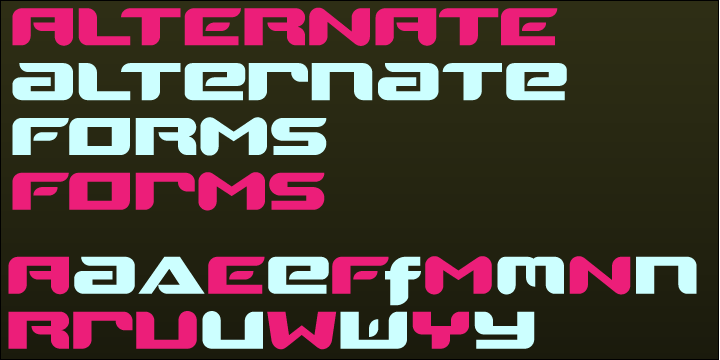
First seen on MyFonts: May 4th, 2009 Automaton was initially designed as a portion of a logotype in 2000, then redesigned slowly over the next eight years to fit the designer’s need for a powerful, yet graceful modular typeface. With a complete character set and several discretionary ligatures, it is flexible as well as sleek. Not quite what you’re looking for? Try looking at more fonts like this. ‘Automaton’ is a trademark of Pretty. |